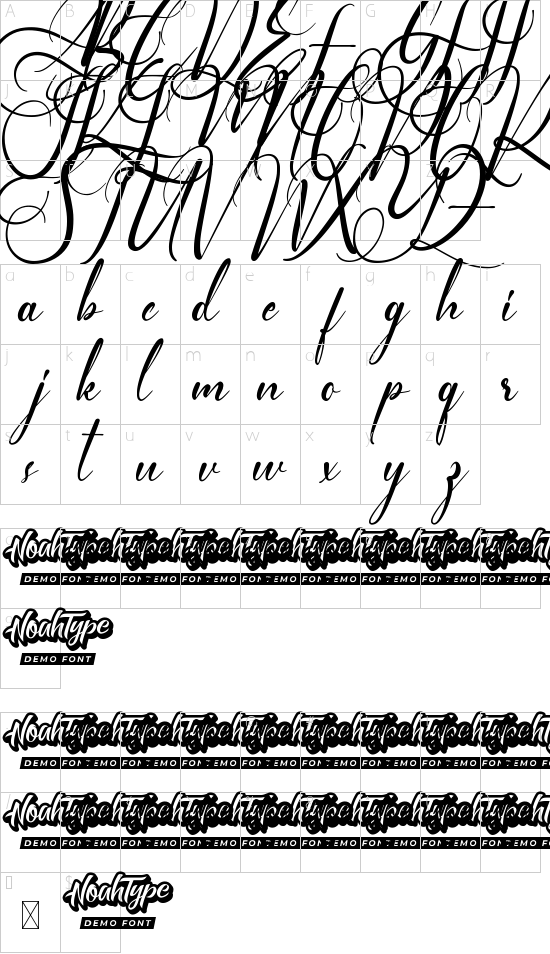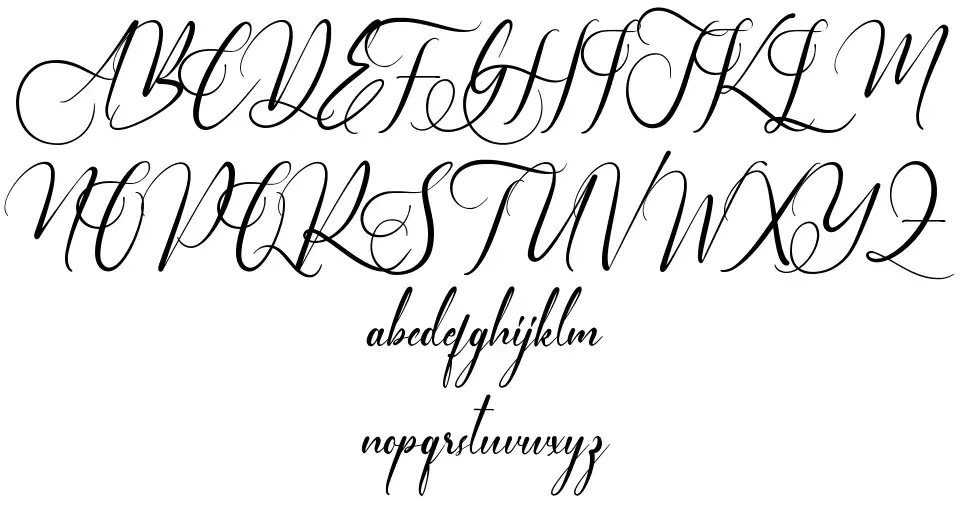
Special Night Regular Font . The beautiful night à € by attract studio in script > various 19,974 downloads (5 yesterday) free for personal use. Special night by ?noahtype a graceful and elegant script font with flowing cursive strokes. Also it contains ligatures and alternates. Download special night demo font · free for personal use · by installing or using this font, you are agreeing to the product usage. Download and install the special night font by noahtype. The special night font has been downloaded 3,415 times. Magic night by tri sakti oktaviano. Special night font includes full set of uppercase and lowercase basic characters, numerals and punctuation. Special night is a sophisticated calligraphy font with stunning characters, stylish swashes and gorgeous alternates.
Special night is a sophisticated calligraphy font with stunning characters, stylish swashes and gorgeous alternates. Also it contains ligatures and alternates. Download and install the special night font by noahtype. The beautiful night à € by attract studio in script > various 19,974 downloads (5 yesterday) free for personal use. Special night font includes full set of uppercase and lowercase basic characters, numerals and punctuation. Magic night by tri sakti oktaviano. Special night by ?noahtype a graceful and elegant script font with flowing cursive strokes. Download special night demo font · free for personal use · by installing or using this font, you are agreeing to the product usage. The special night font has been downloaded 3,415 times.